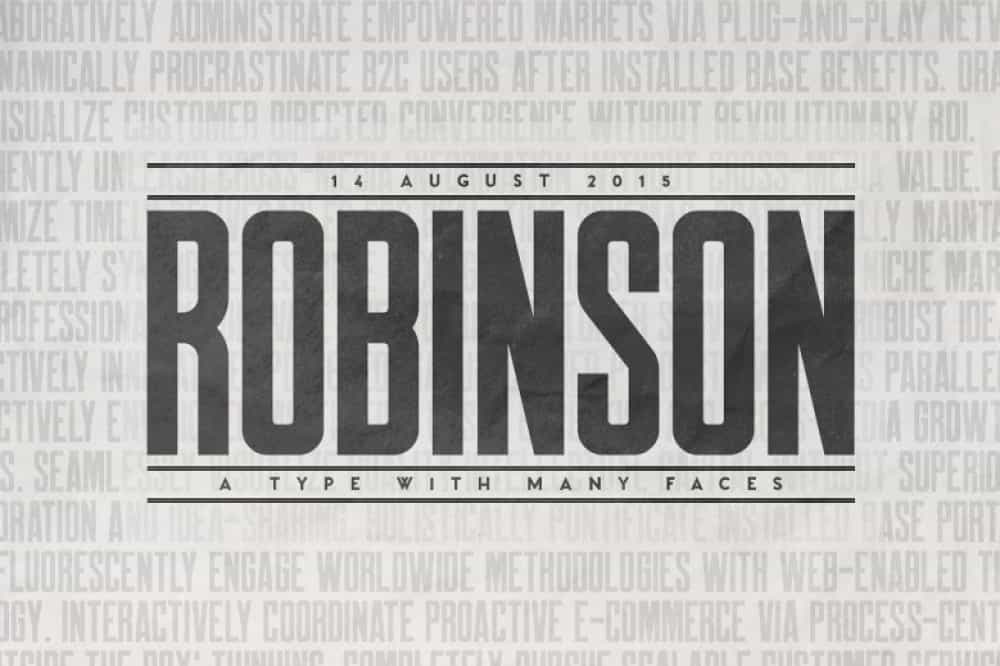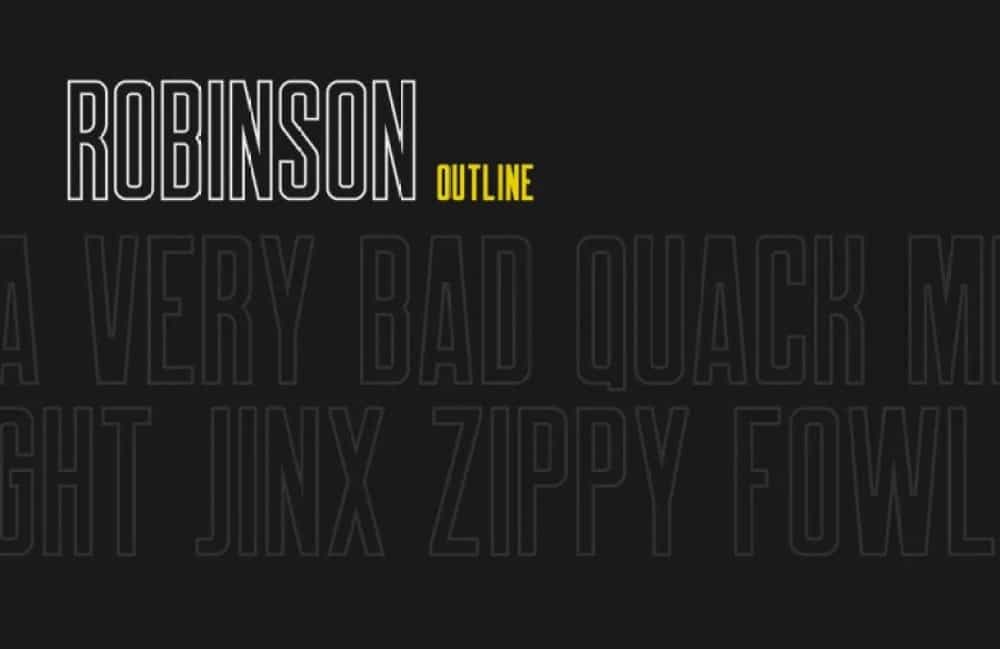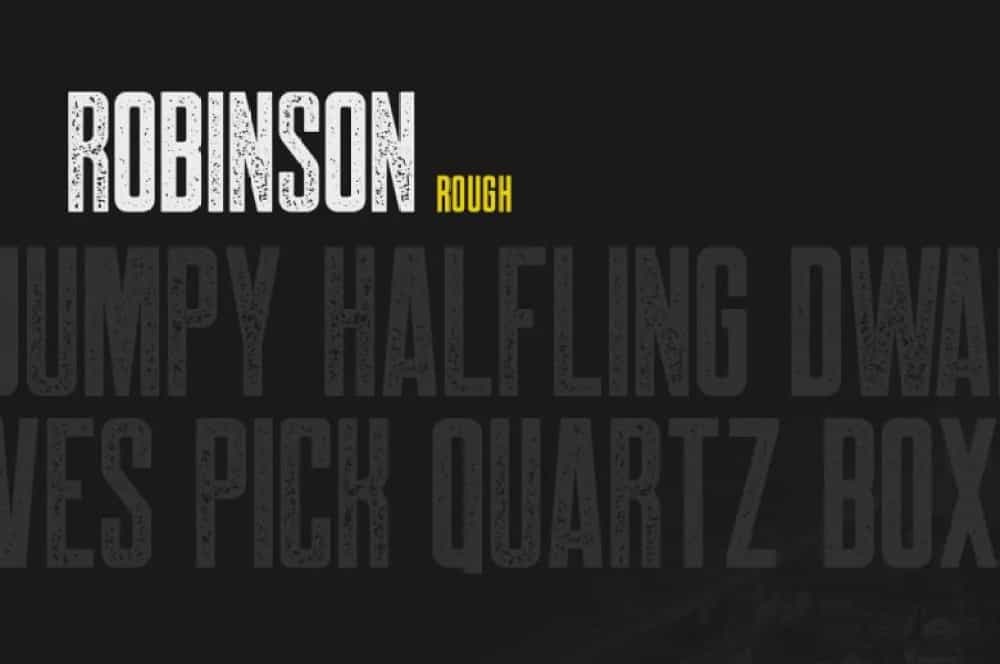
Robinson is a vintage condensed sans serif font family which was made and designed by Tugcu Design Co. It is perfect for branding projects, logos, labels and many more things. The texture that looks like rust core will enhance your design, product, logo or label and make it more interesting, unique and meaningful.